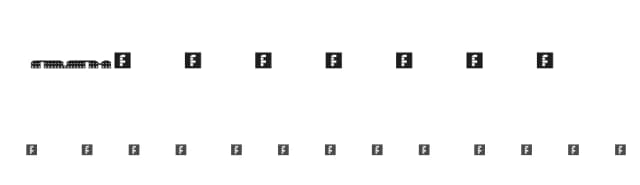
About Anadolu Font
It is a mix of all the cultures of Anatolia. Those symbols don't belong to one civilization and they are collected by me according to my own taste from 9000 years.